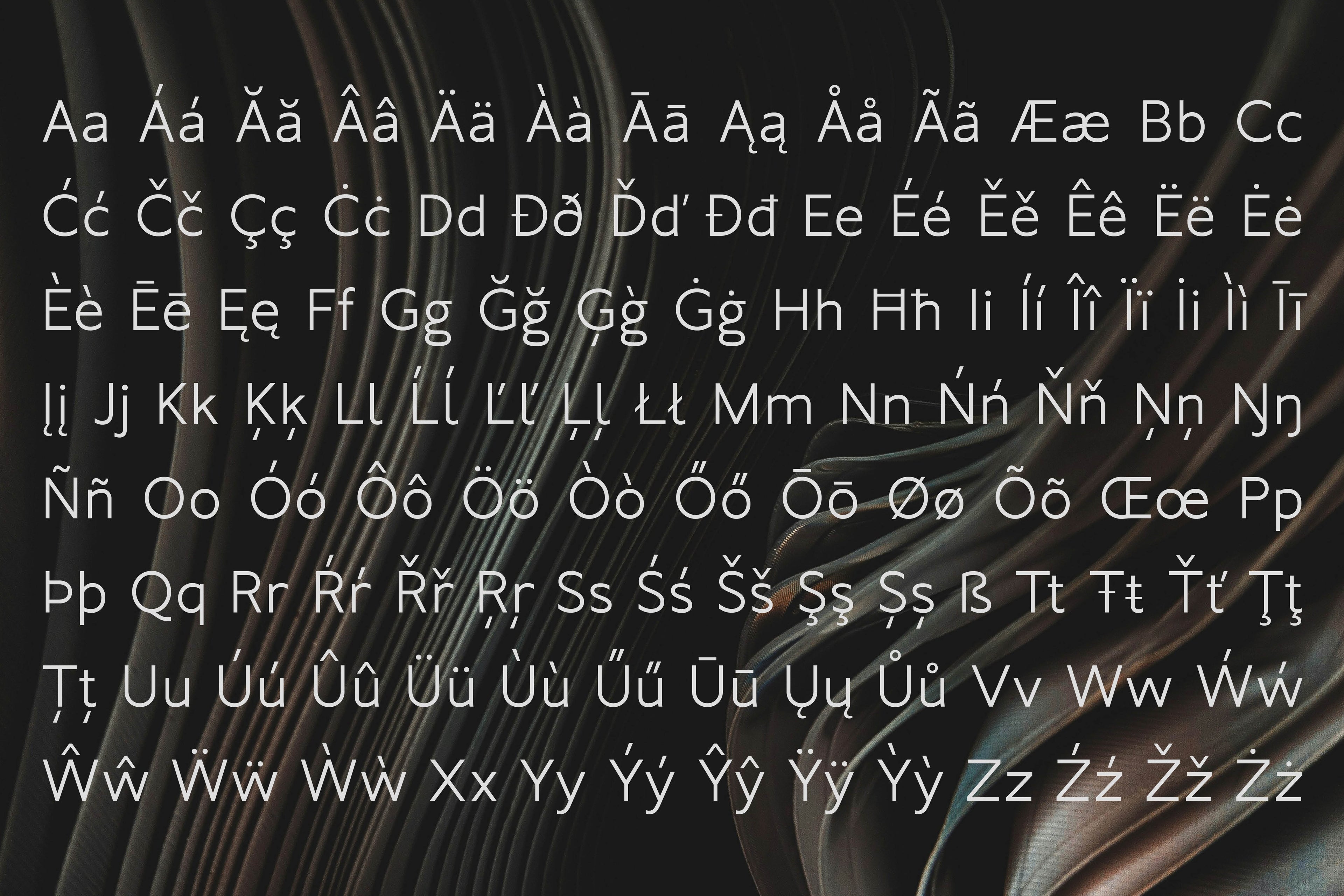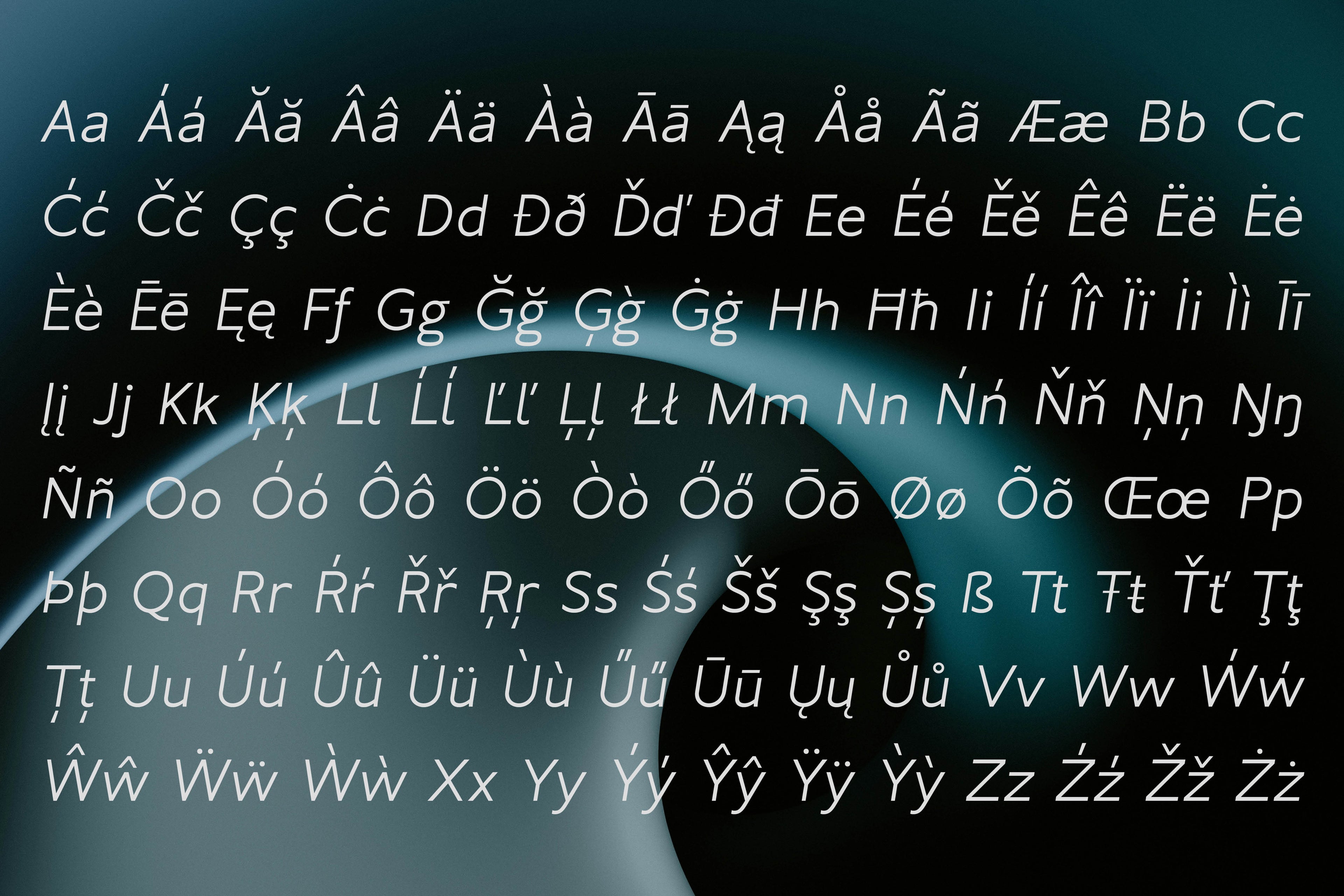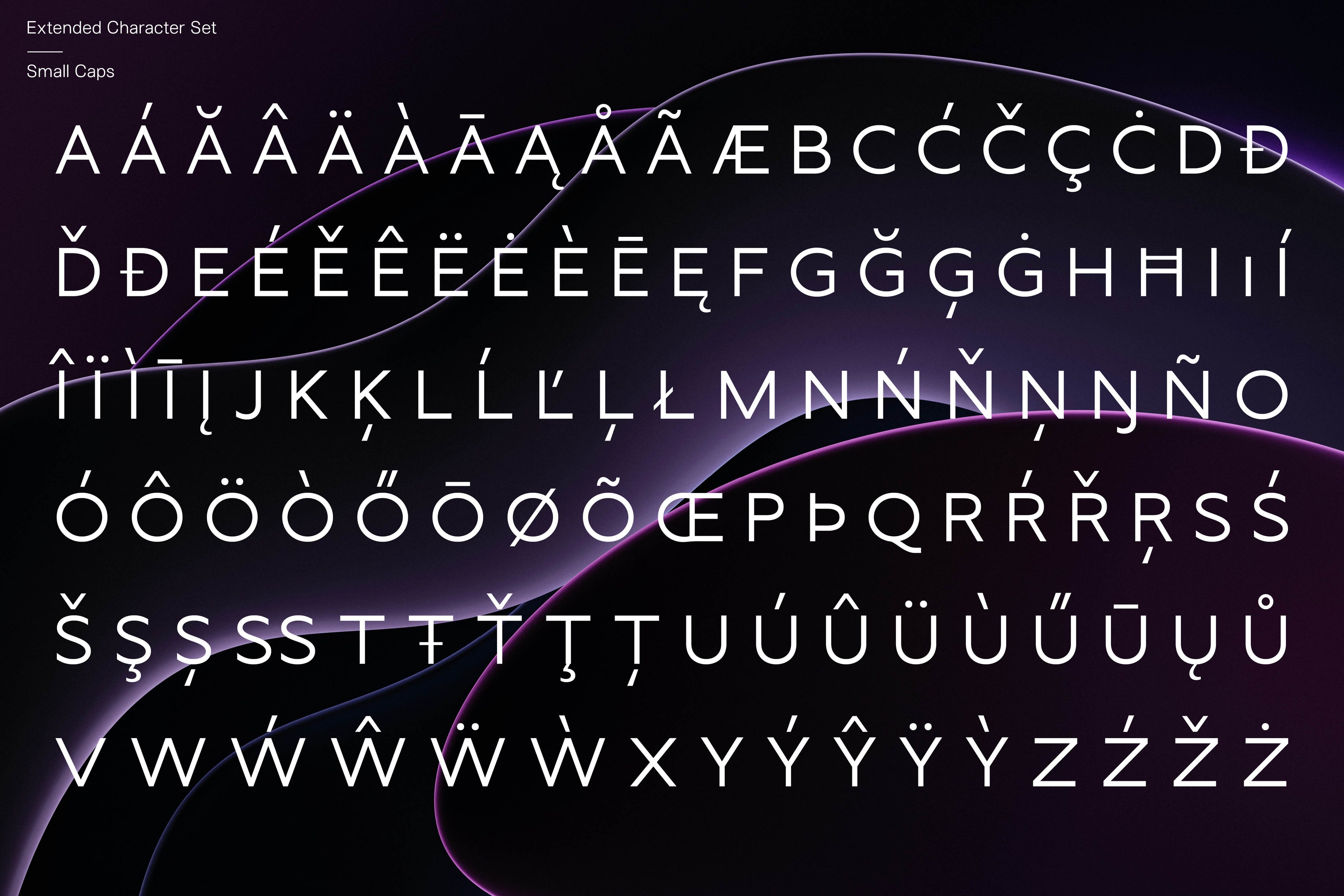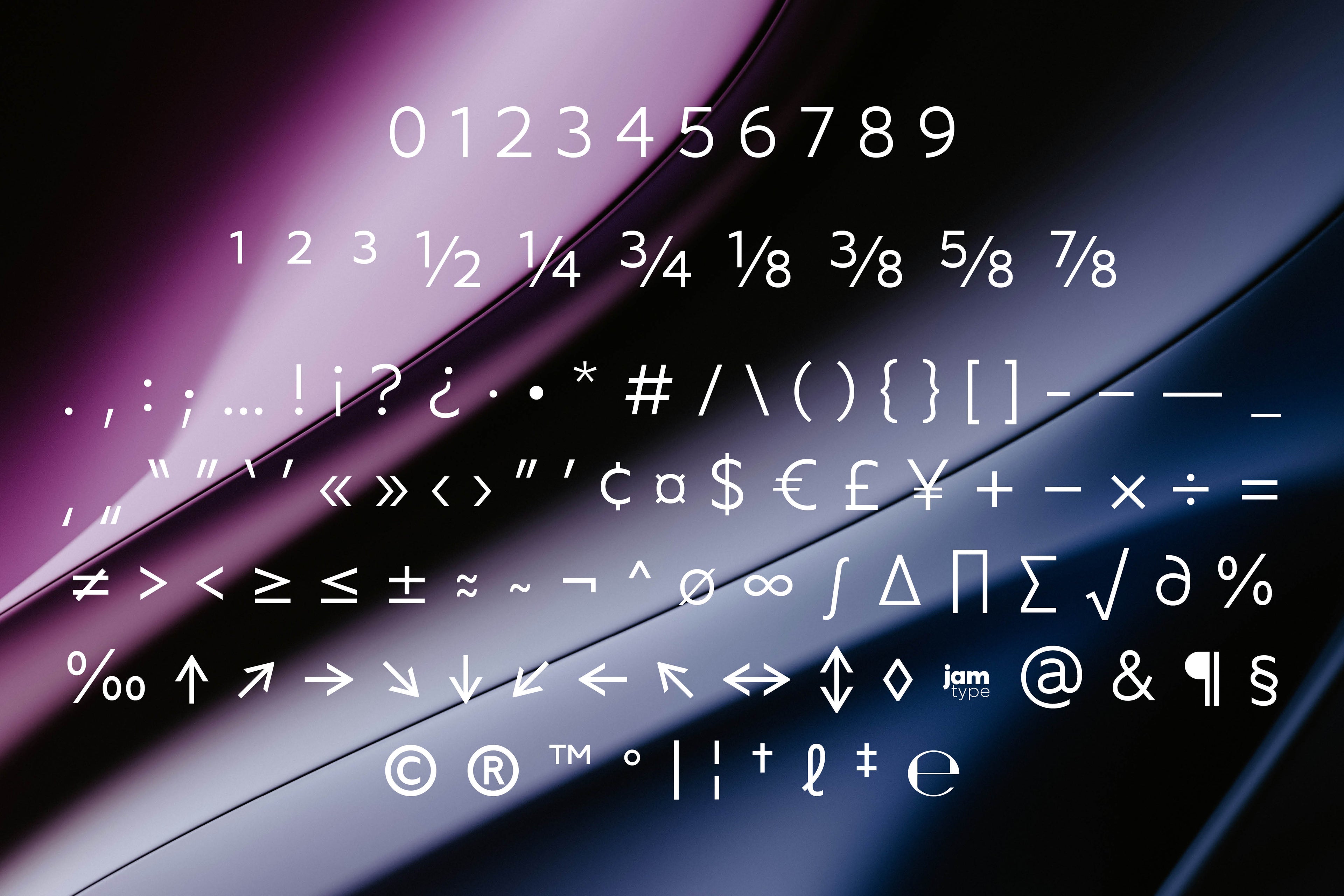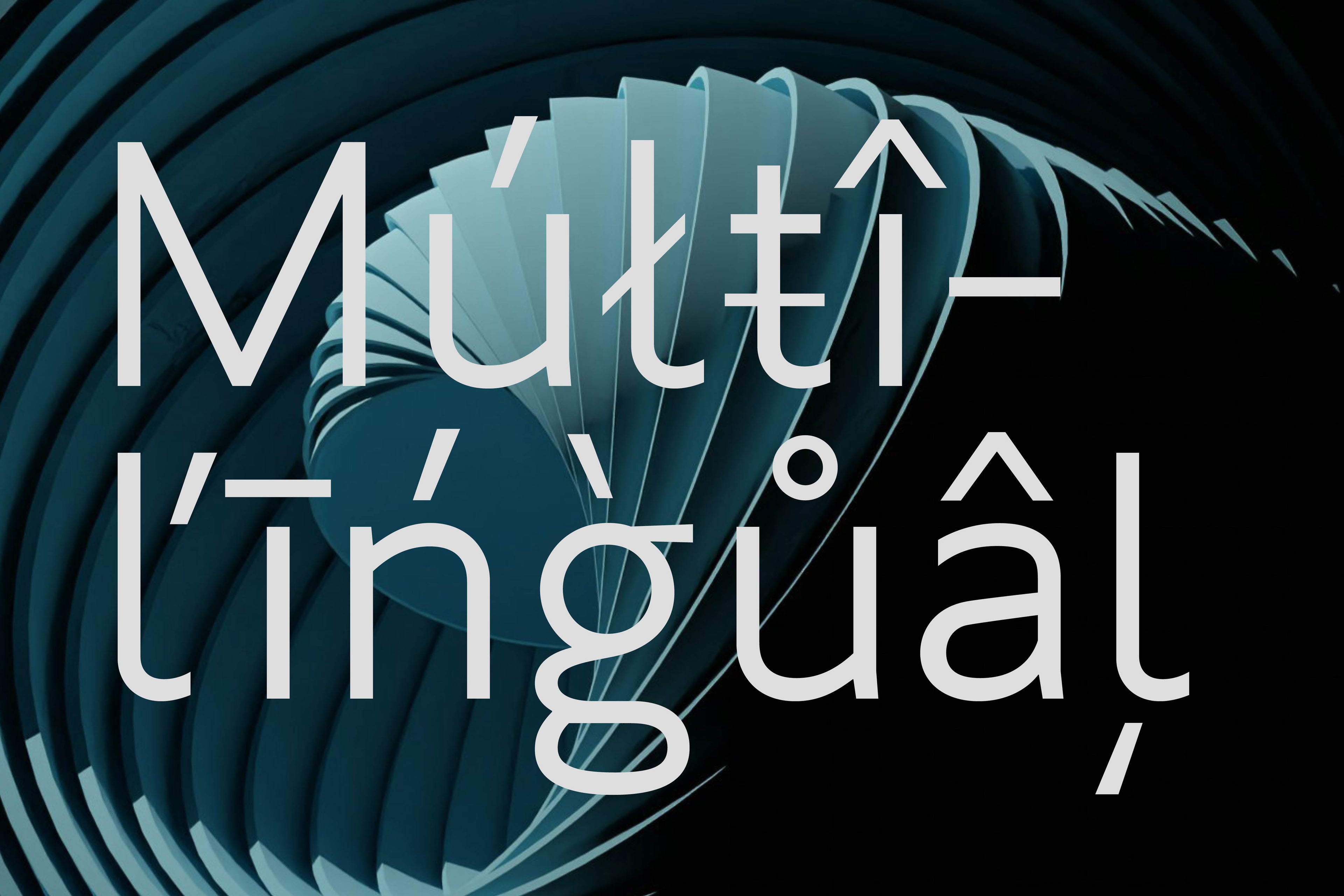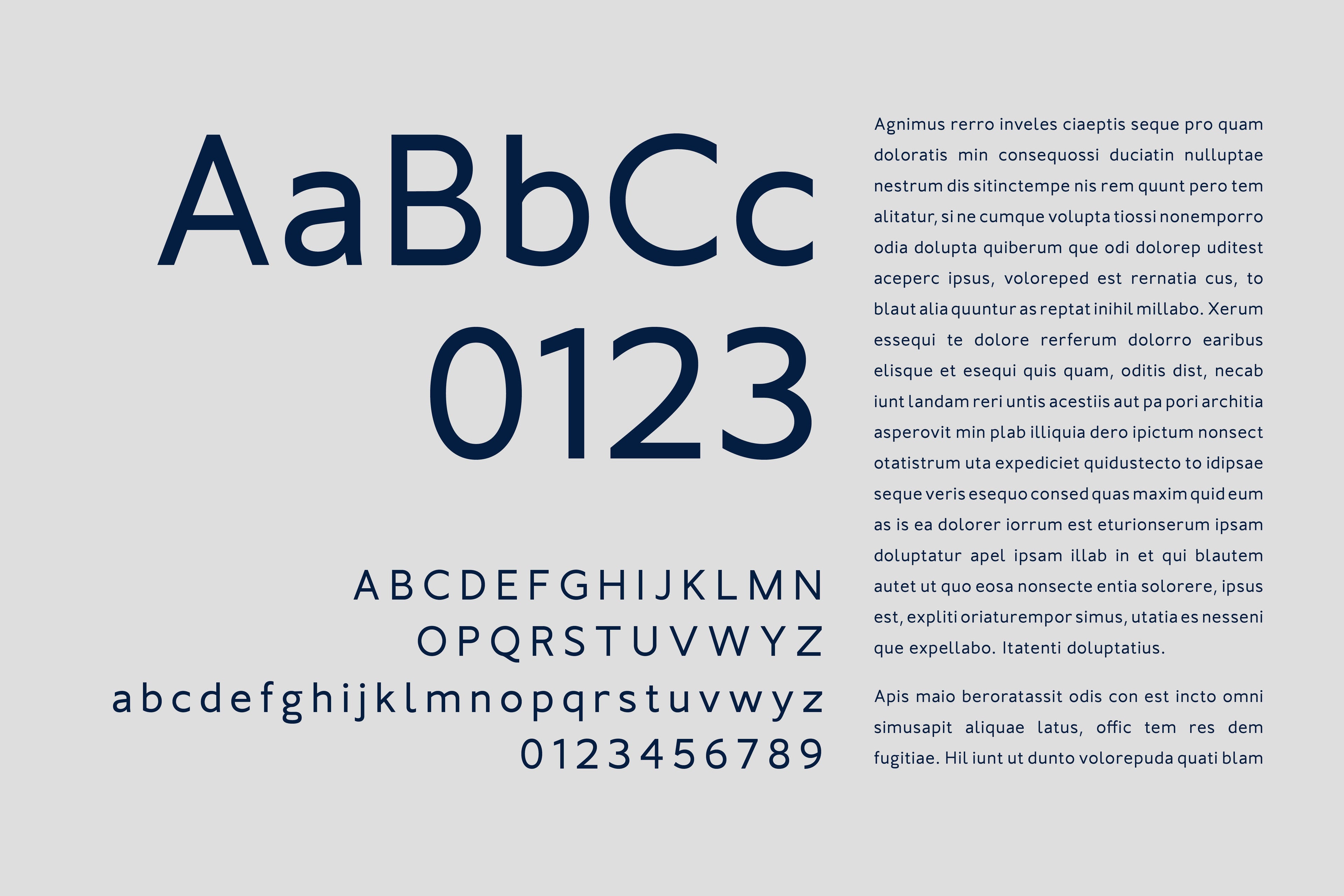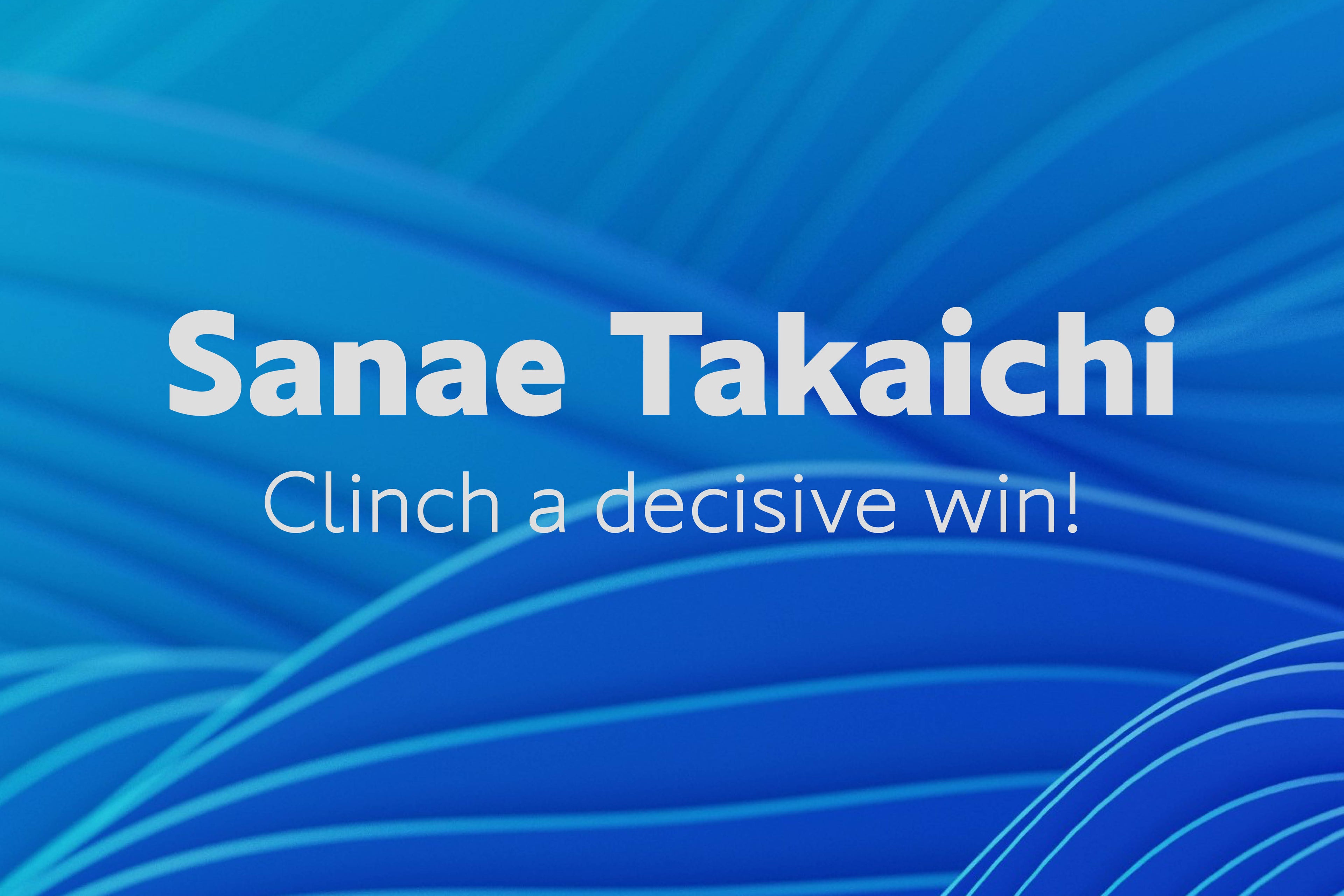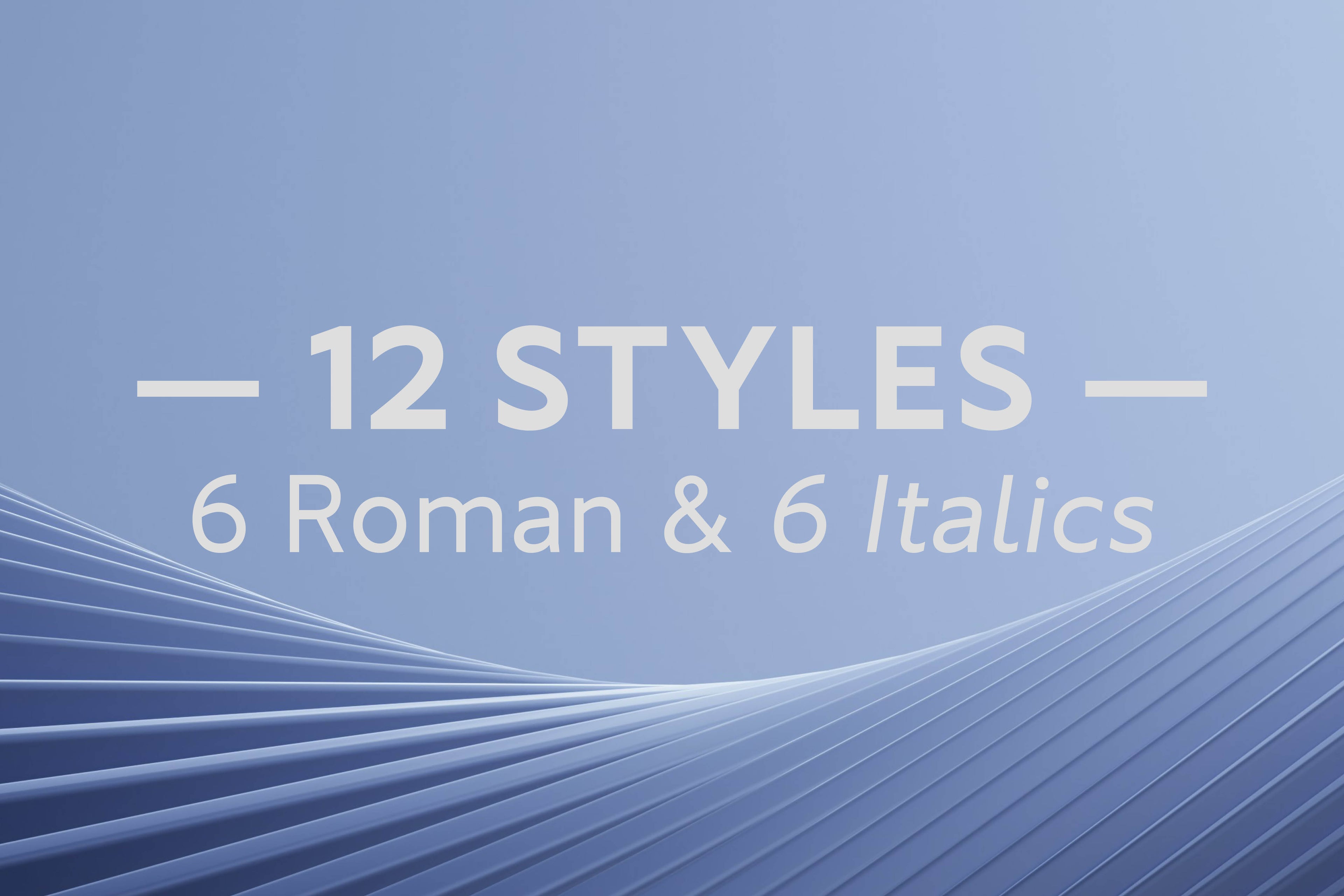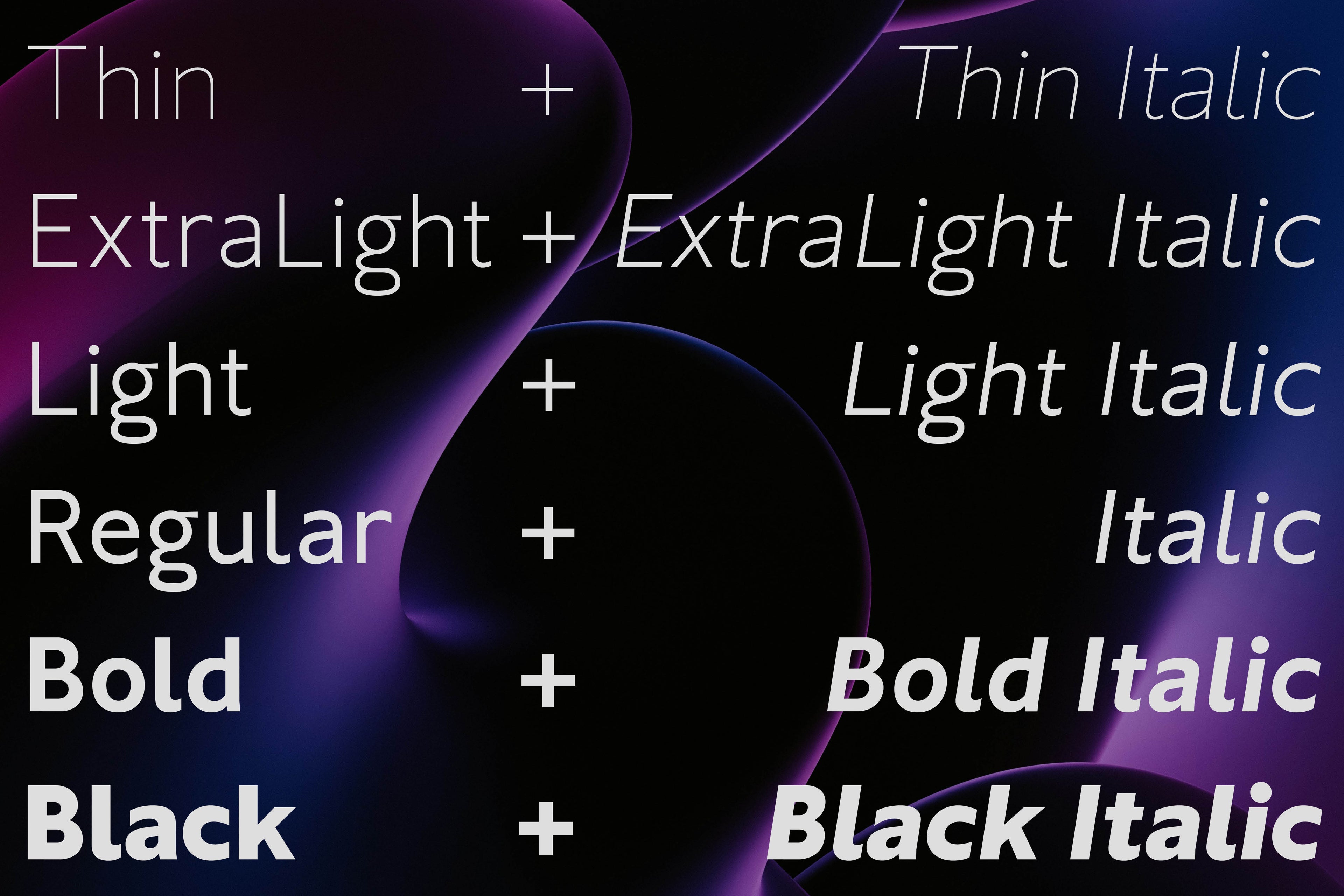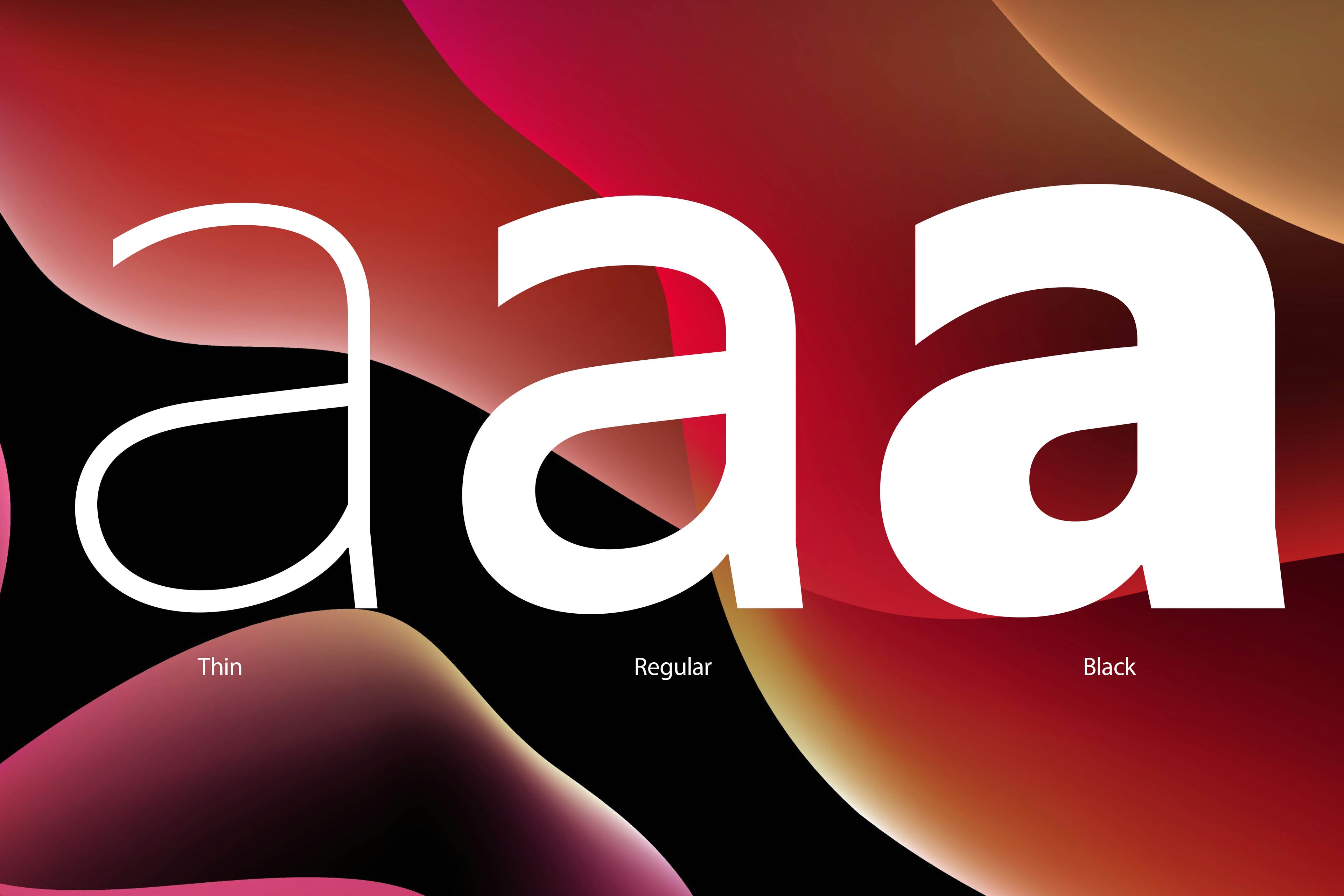
Koya Sans
Koya Sans is a contemporary, humanist sans with a friendly yet clear and distinct personality. It is designed for excellent legibility, particularly for long continuous reading. The sharp terminals add liveliness and variety to the carefully crafted letterforms. Koya Sans, a highly versatile type family consisting 12 styles that are designed to work equally well on paper and on screen. The family ranges from Thin to Black variations, with complimenting italics. Inspired by a trip to the Buddhist temple of Kōyasan south of Osaka, Japan, this carefully crafted sans serif typeface with its sharp terminals loosely emulating the sharp corners of the temple’s pagoda roof.